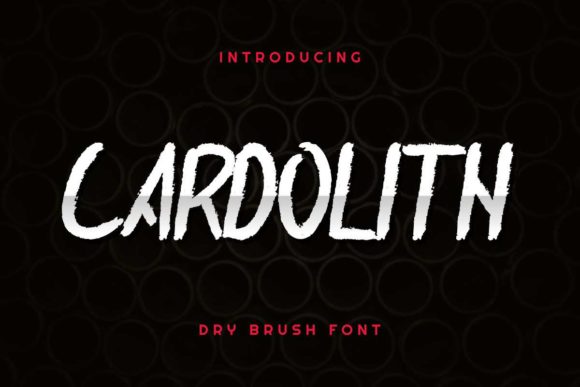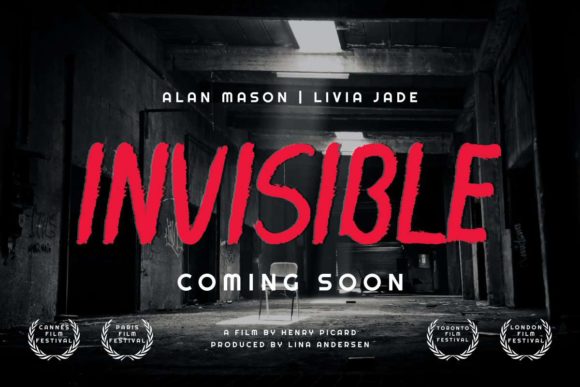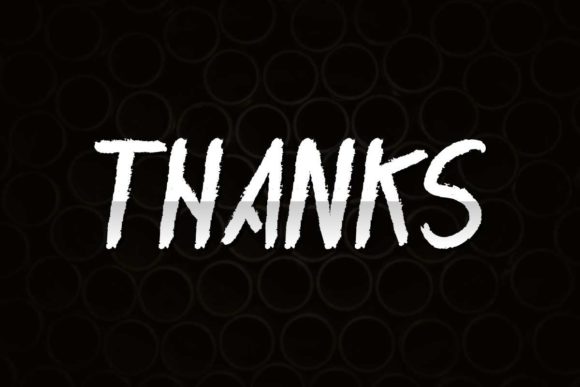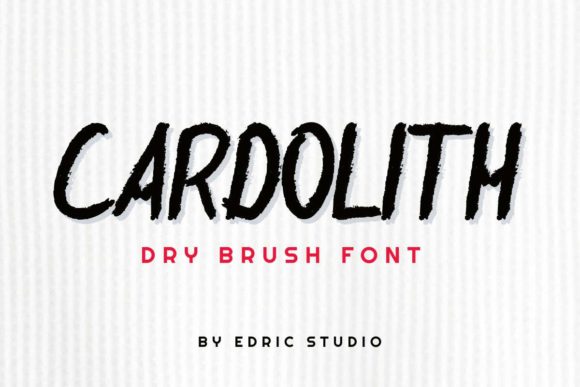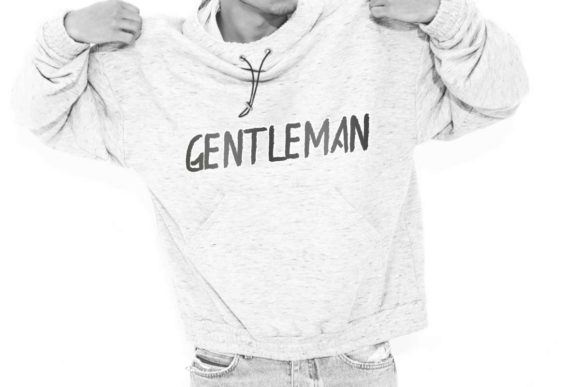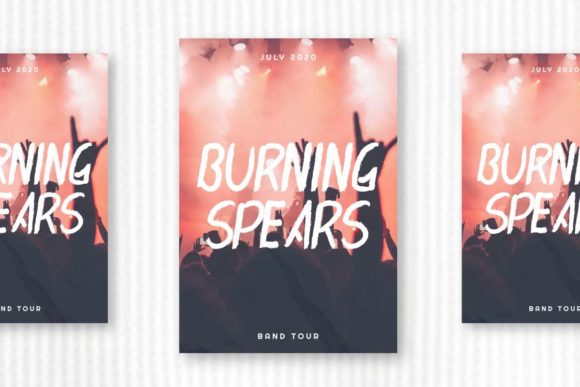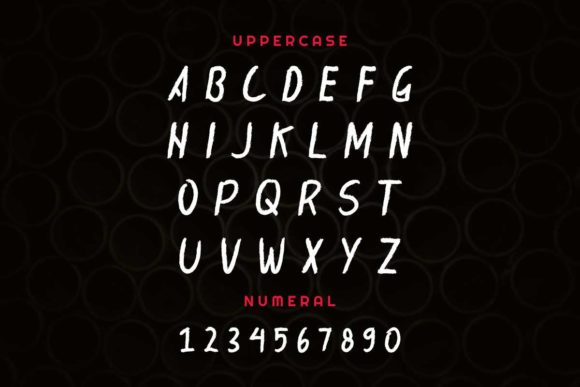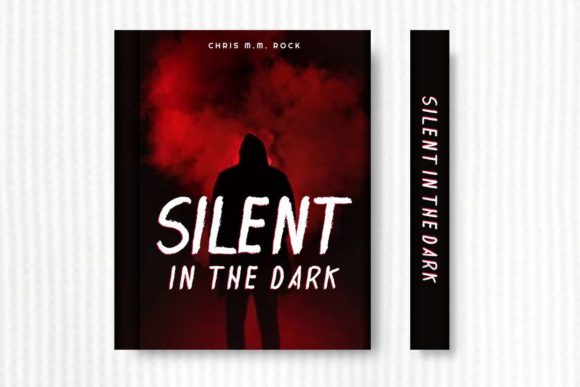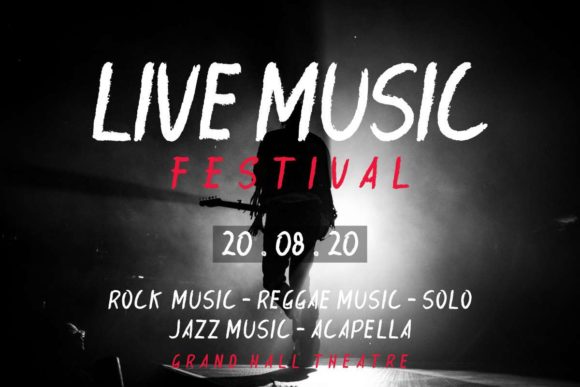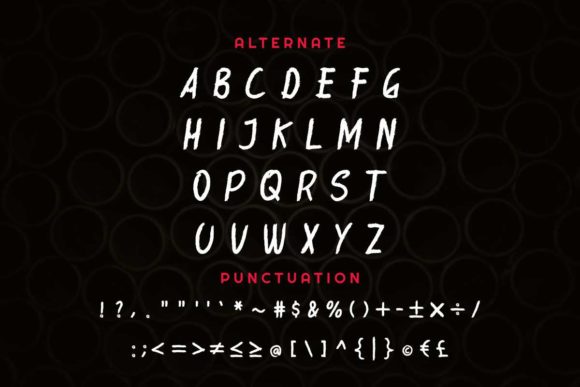
Cardolith Font
Cardolith is a cute and friendly handwritten font. Relaxed and a bit quirky, this font is the right match for a wide variety of designs.